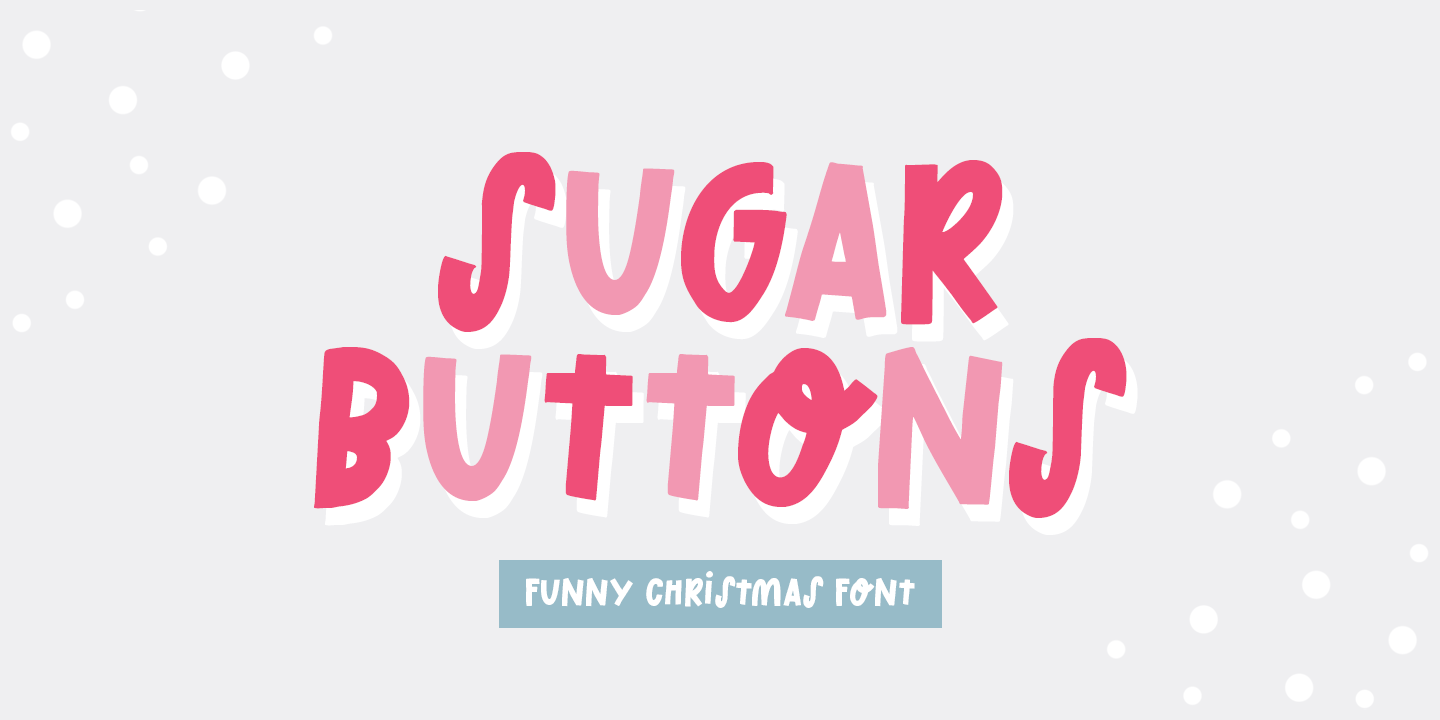
Usage Examples: Sugar Buttons Font is ideal for playful branding, children’s books, cute packaging, and whimsical social media graphics.
Why It’s Exciting: Its rounded, handcrafted style radiates a charming, approachable vibe, perfect for adding a fun, quirky touch to designs.
Font Families: Sugar Buttons Font includes Regular, Bold, and Outline variants, offering versatility for creative projects.
Make your designs pop with Sugar Buttons Font Free Download! This delightful typeface brings a sweet, playful energy to any project, from kid-friendly products to vibrant marketing materials. Its soft, rounded letters create an inviting and cheerful aesthetic, ensuring your content stands out. Download Sugar Buttons Font Free Download today to test its charm, but secure a commercial license for professional use. With Regular, Bold, and Outline options, this font adapts effortlessly to various design needs, balancing readability and personality. Elevate your brand’s appeal with this adorable, versatile typeface now!